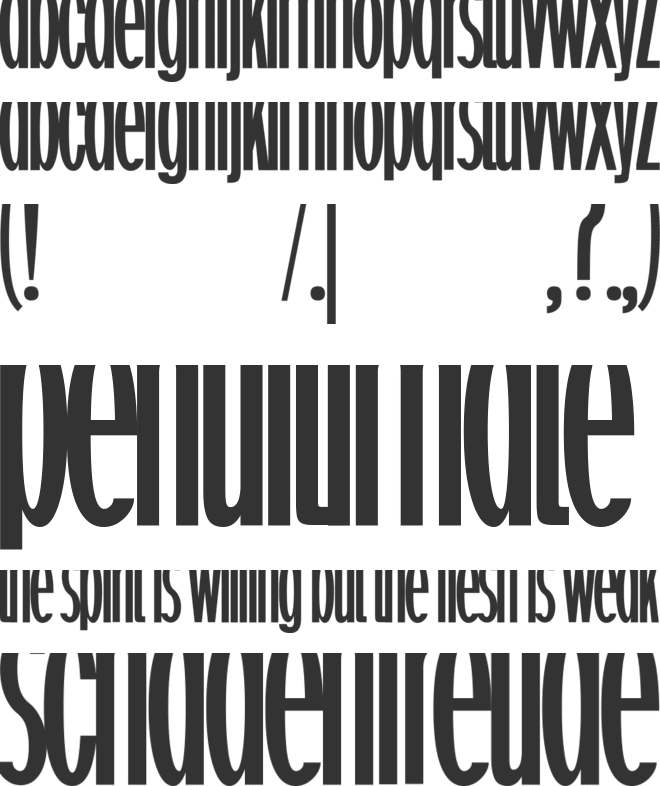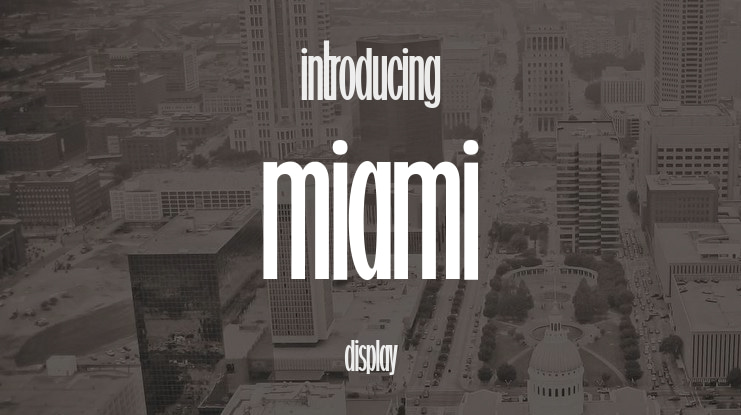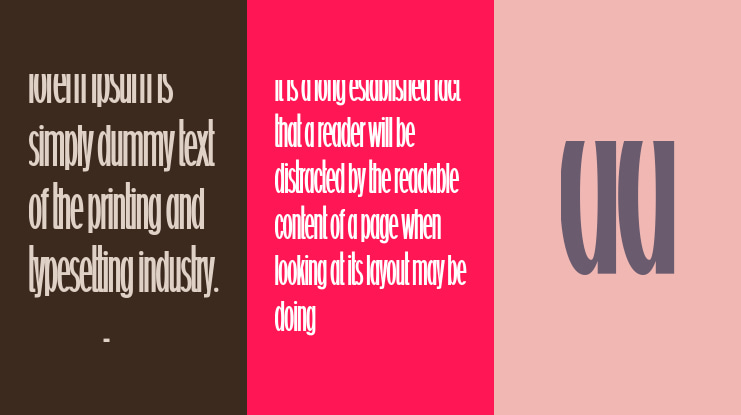
miami Font Family
🎨 Font Name: Miami by Minimalist Art Studio
🎨 Font Description: MIAMI is a bold condensed sans serif with 570+ glyphs and sunlit clarity, perfect for travel branding, editorial layouts, and lifestyle design.
βœ” Complete Latin set + multilingual diacritics
βœ” Alternates, stylistic sets & ligatures
βœ” Numbers, small caps, and extended punctuation
βœ” Bonus italics and family styles